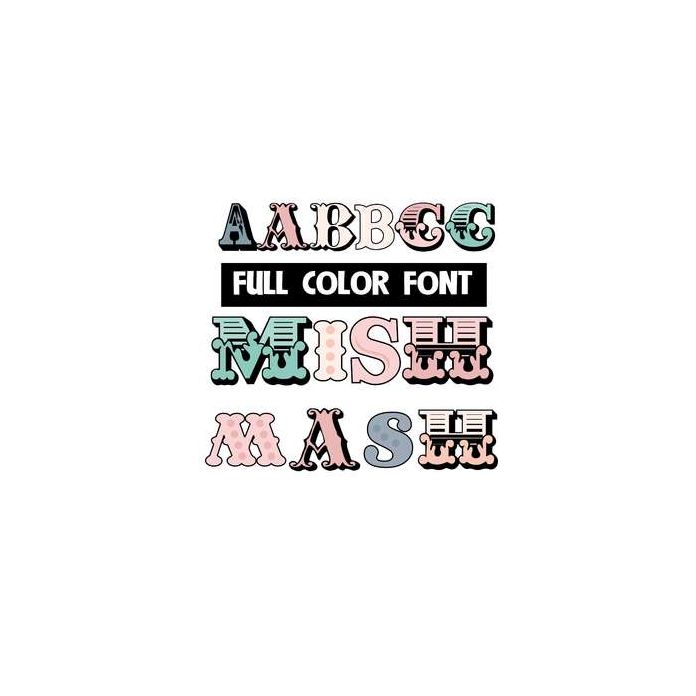
This full-color font is a mix of different looks for a very hodgepodge feel. This font works best for titles, displays, posters and more. Please note color fonts will show as black in non compatible programs. This font type is compatible with Silhouette Studio.